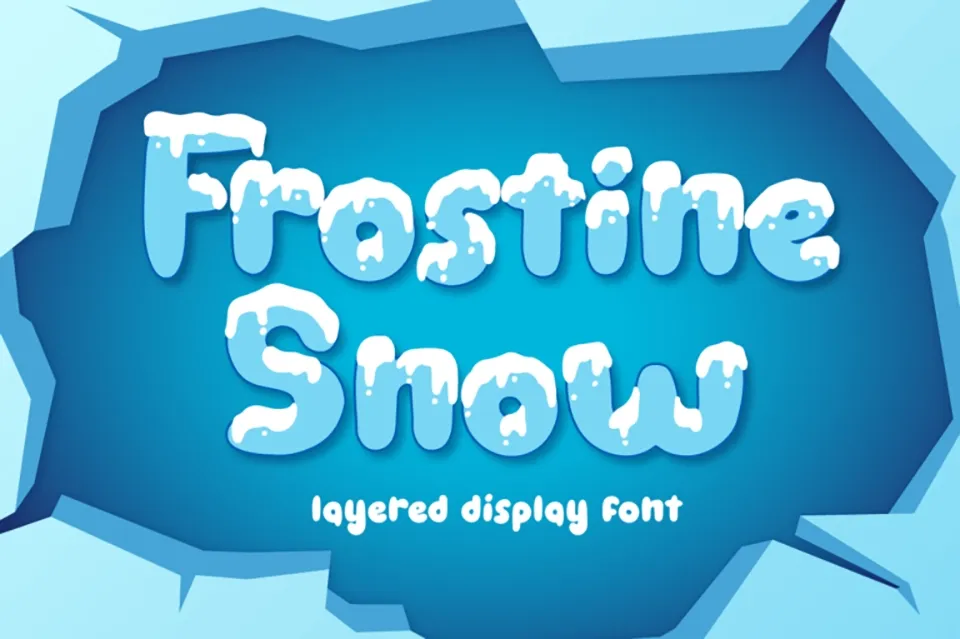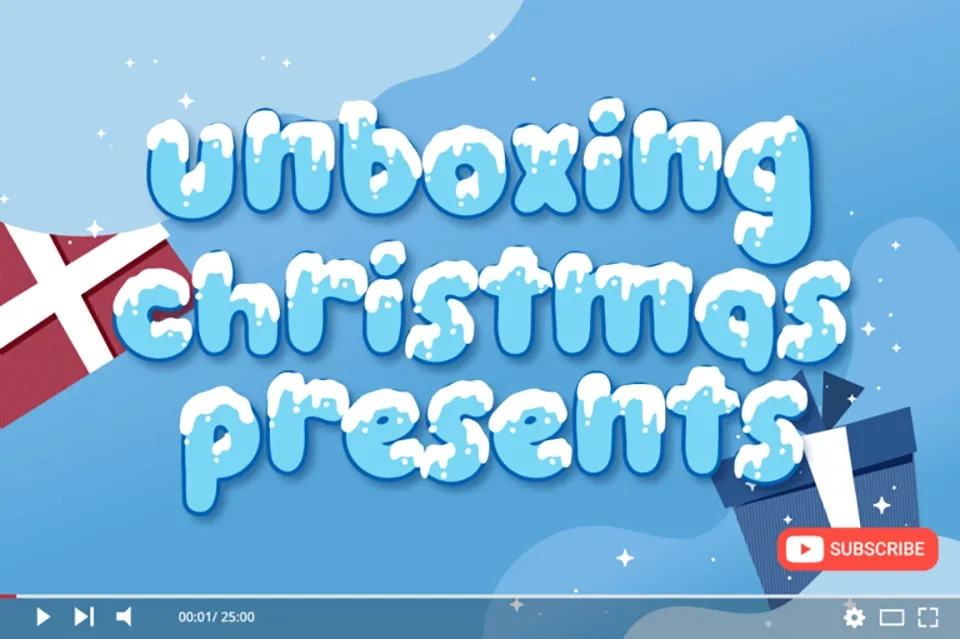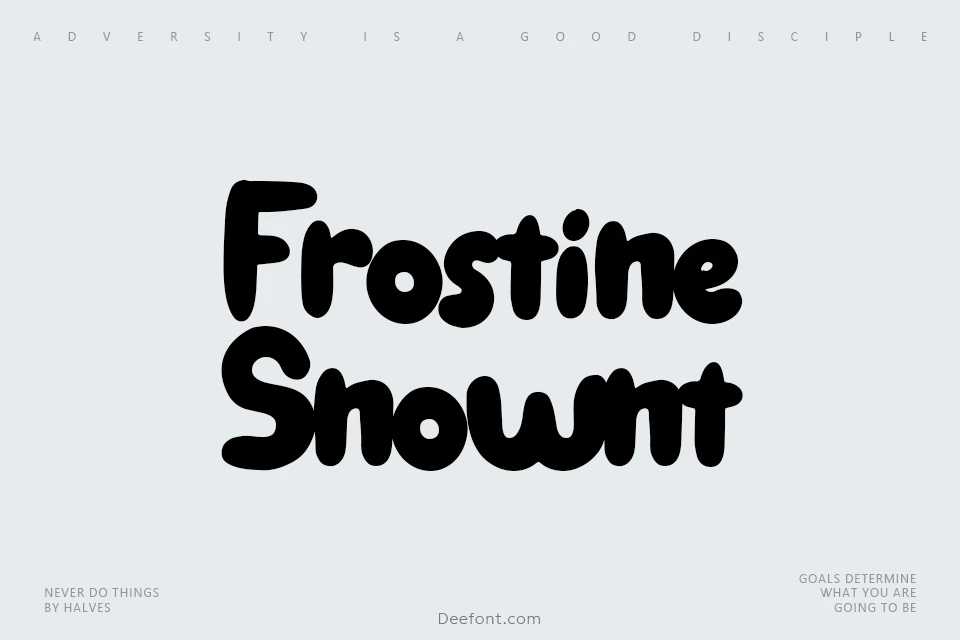
Frostine Snow Display Font
Frostine Snow Display Font is a wide, bold, and playful typeface inspired by winter snow. This layered display font is perfect for creating festive Christmas cards, children’s products, branding, logos, invitations, stationery, product packaging, merchandise, monograms, blog designs, game titles, cute style designs, and book or cover titles. The font features a snow-capped effect and is easy to use for 3D effects, making it ideal for whimsical and creative winter-themed projects. It supports multilingual characters and comes in both handwritten and display styles, adding versatility to your design toolkit.